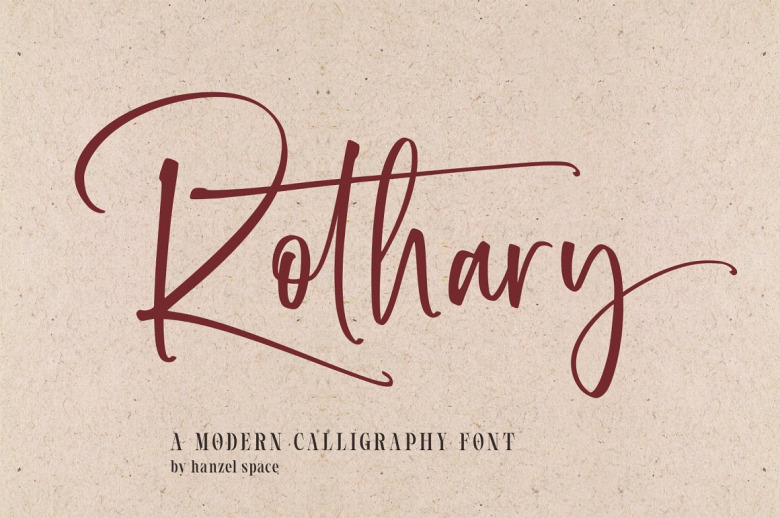
Rothary Font
This pack includes Rothary with a full set of uppercase and lowercase letters, multilingual symbols, numerals, punctuation, alternates, swash and ligatures.
This font has Modern Elegant Style this is perfect for branding, logos, invitation, and masterheads and more.
Rothary Calligraphy Font